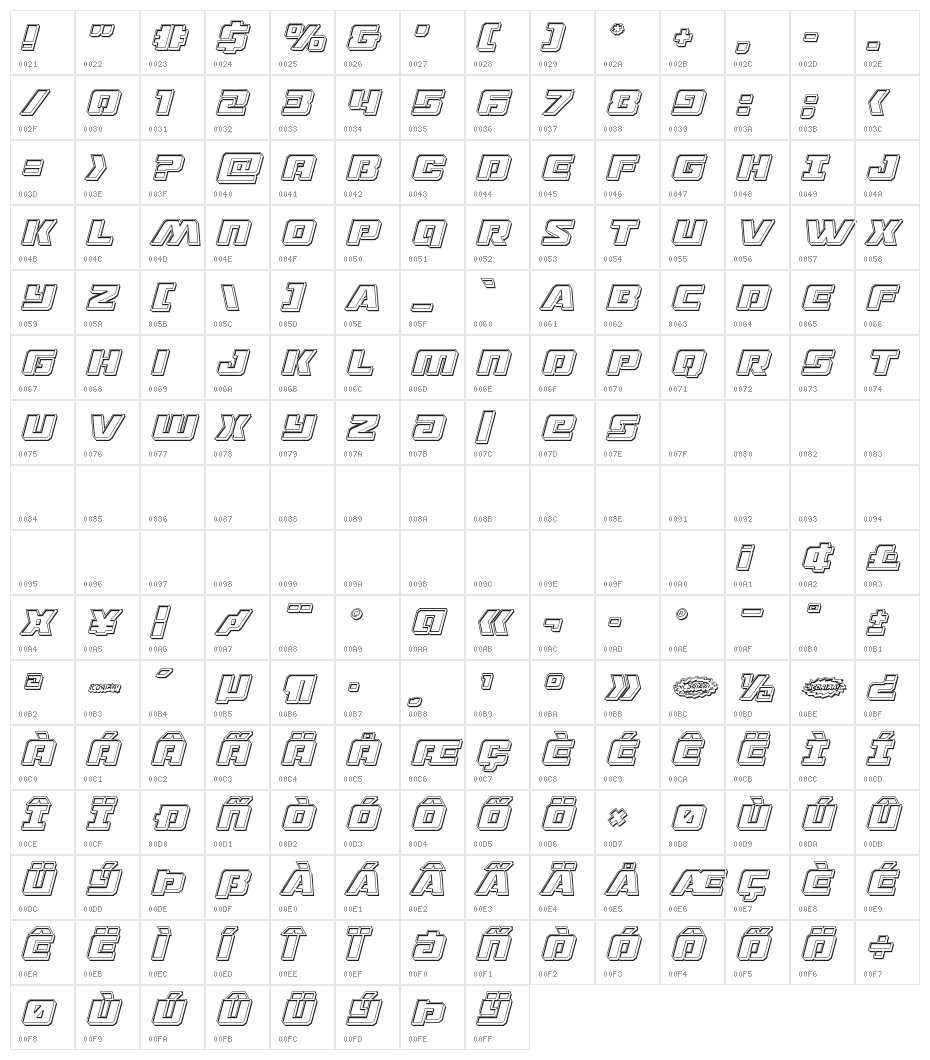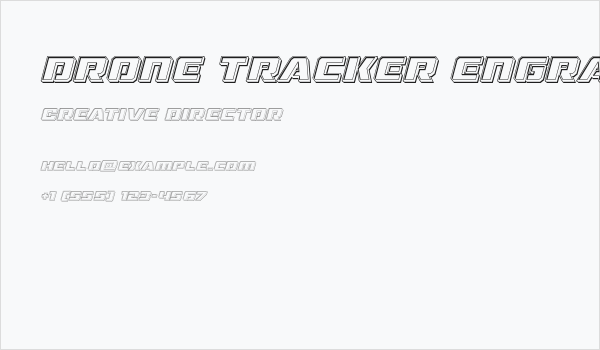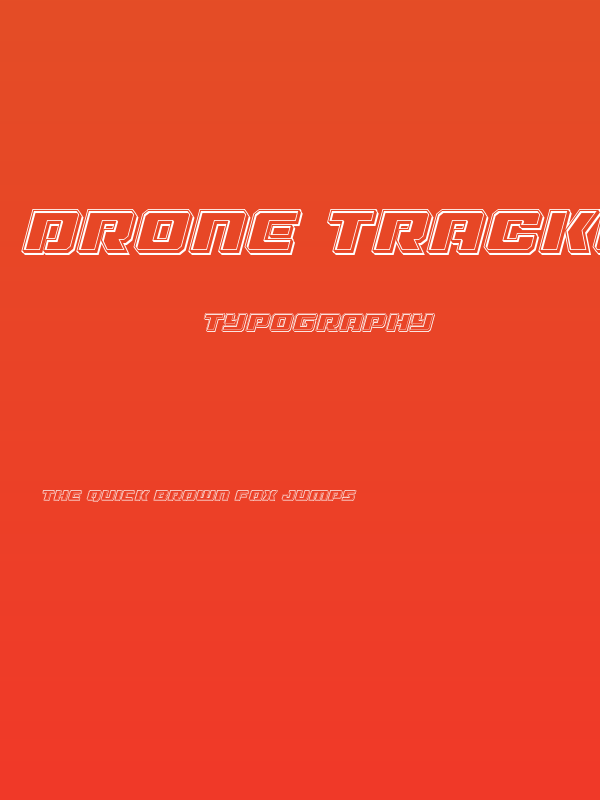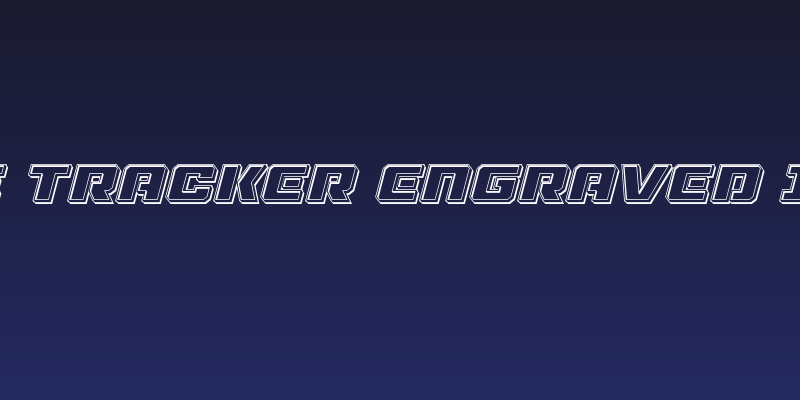
Drone Tracker Engraved Italic Font
Drone Tracker Engraved Italic Description
This font features a bold, futuristic design with an engraved, italicized style. The characters are outlined, giving a three-dimensional effect that enhances its modern and dynamic appearance. The uppercase and lowercase letters maintain a consistent geometric structure, with sharp angles and clean lines. The numbers and special characters follow the same design principles, ensuring uniformity across all glyphs. This font's unique style makes it stand out, offering a visually striking option for creative projects.
| Proposed Projects | Ideal for technology branding, sci-fi posters, video game titles, and modern advertising campaigns. |